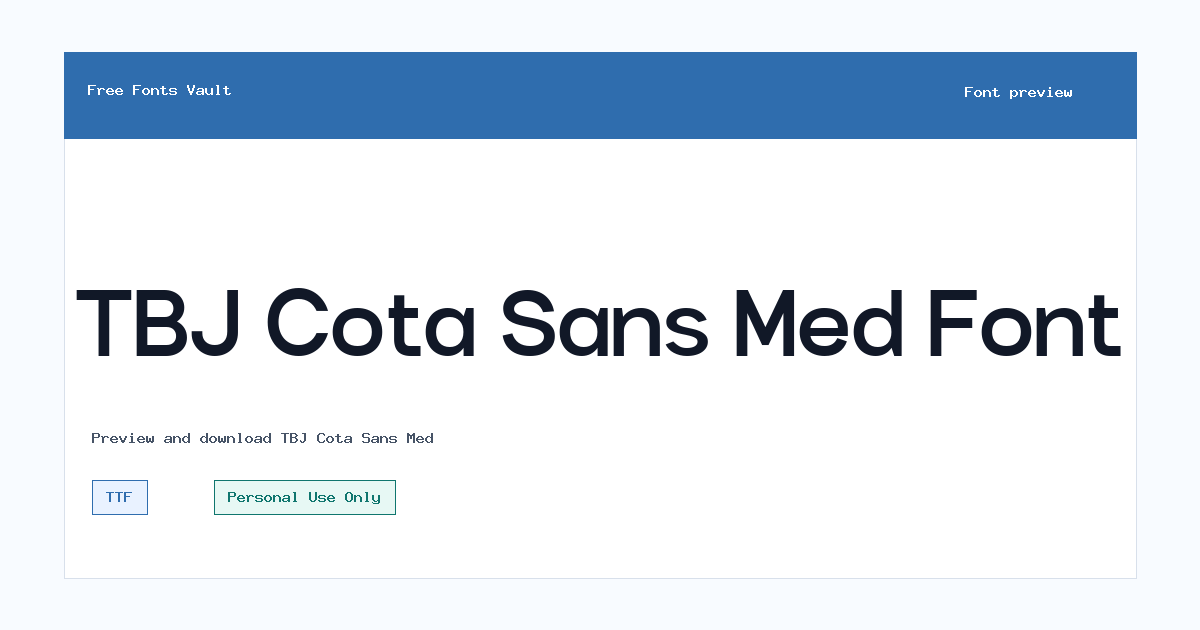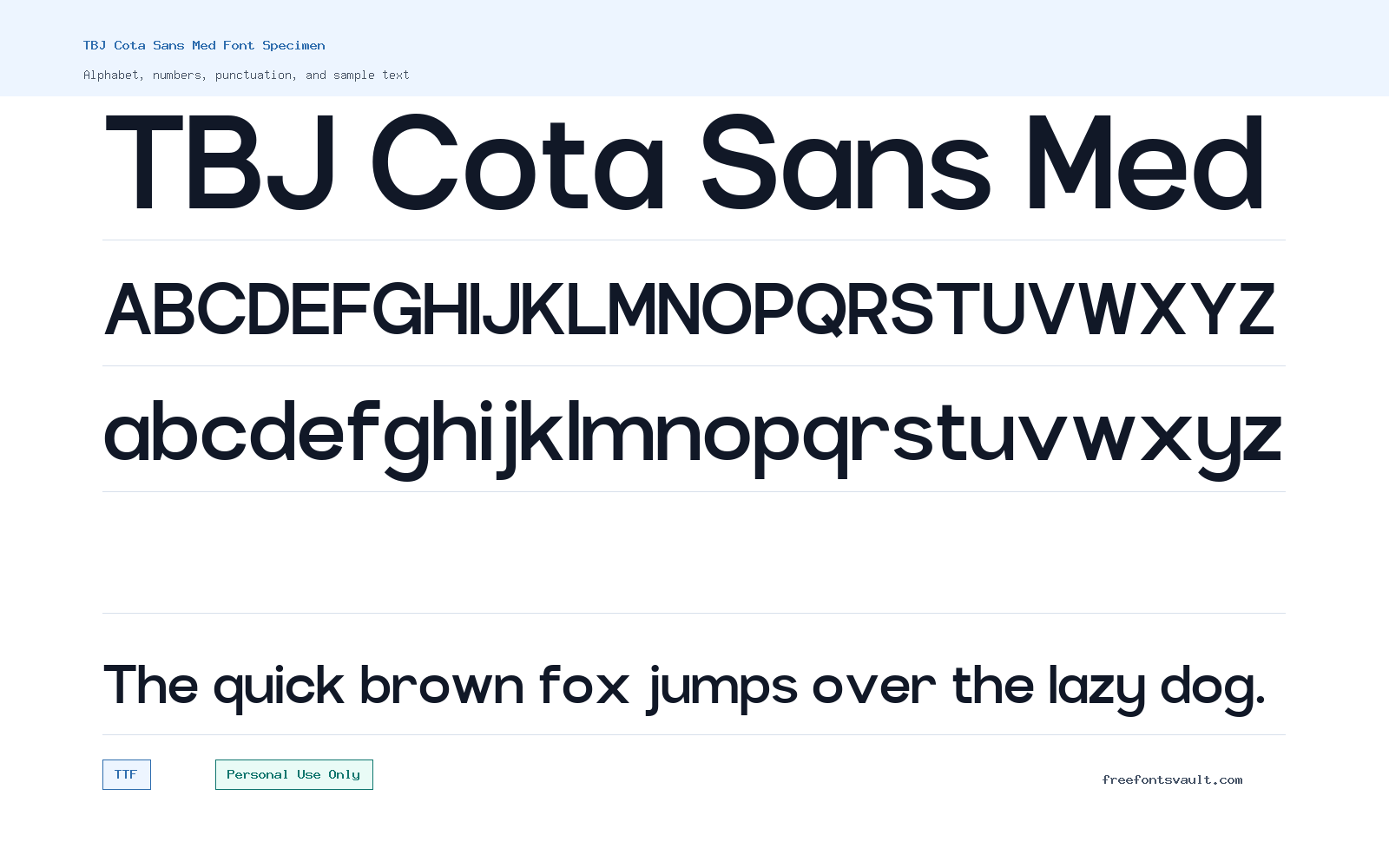
TBJ Cota Sans Med
- Designer Yusilo Oktaprima Ardani Taboja Studio
- Foundry Taboja Studio
TBJ Cota Sans Med font.
TBJ Cota Sans Med is a medium-weight sans serif font with a clean, steady look that works well when you need simple letterforms with more presence than a light text face.
About TBJ Cota Sans Med
TBJ Cota Sans Med sits in the practical middle of a sans serif family: not too thin, not too heavy, and easy to test across short design text. The medium weight gives headings, labels, and display lines a firmer tone without pushing into bold territory. That makes it useful for visitors who want a neat sans serif style for personal projects, early branding sketches, poster drafts, social graphics, or web layout mockups. Because the available file is a TTF font, it should be straightforward to install on most desktop systems and use in common design apps that accept TrueType fonts.
Use the preview tool to check the details that matter for your own text. Try uppercase logo-style words, mixed-case headings, numerals, and any punctuation you plan to use. Medium sans fonts often look strongest in short lines, navigation labels, cards, presentation titles, and clean poster text. For long paragraphs, test spacing and size carefully before committing, because a display-friendly medium weight can feel dense if the text block is small or crowded. If you are building a logo concept, compare the font at large sizes and look closely at repeated letters, word shape, and how the spacing behaves between narrow and wide characters.
- Medium-weight sans serif style with a balanced, clean appearance for short text and display use.
- Normal style with a 500 weight, giving it more visual strength than regular text weights while staying less forceful than bold.
- Useful for personal design trials such as posters, title cards, social posts, presentation headings, and interface mockups.
- Simple letter structure that can pair well with a readable serif or a lighter sans serif when more contrast is needed.
- Logo drafts and wordmark experiments where you want a clean sans serif base.
- Poster titles, event graphics, and social media layouts that need compact, readable headline text.
- Web and app mockups, especially navigation labels, cards, buttons, section headings, and short UI copy.
- Presentation covers, portfolio slides, and personal project branding boards.
- Typography tests where a medium-weight sans serif is needed before choosing a full licensed family.
TBJ Cota Sans Med is credited to Yusilo Oktaprima Ardani / Taboja Studio, with Taboja Studio listed as the foundry.
For best results, test the font in the exact words you plan to use. Start with headings, logo text, and short phrases, then compare it against a lighter body font if your layout needs longer reading sections. In web mockups, use it for visual direction first and confirm licensing before turning the design into a live commercial project. For pairing, keep the second typeface quiet: a neutral sans serif for body copy, or a simple serif if you want contrast without making the layout feel busy.
What kind of font is TBJ Cota Sans Med?
It is a sans serif font in a medium weight. It is best tested for short text, headings, logo drafts, posters, social graphics, and clean layout mockups.
Does TBJ Cota Sans Med work for body text?
It may work for short blocks, but the medium weight is usually more comfortable for headings, labels, and display text. Test paragraph sizes carefully if you plan to use it for longer reading.
What fonts pair well with TBJ Cota Sans Med?
Pair it with a lighter neutral sans serif for body copy, or with a simple serif if you want a more editorial contrast. Avoid pairing it with another strong display font unless the layout is intentionally bold.